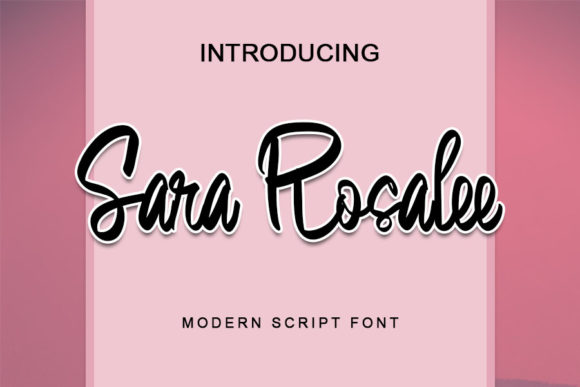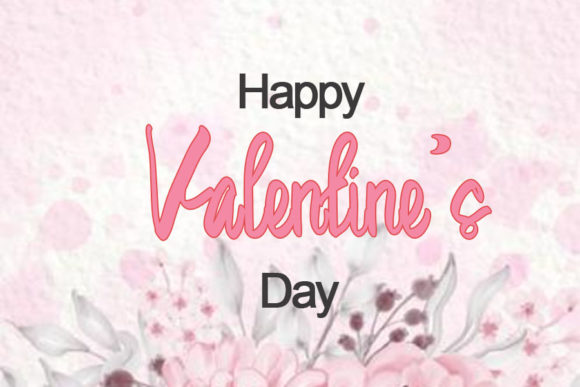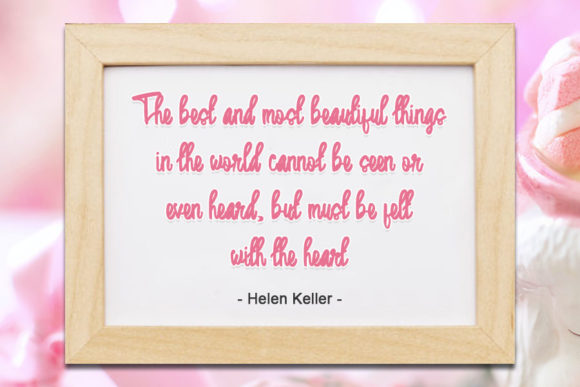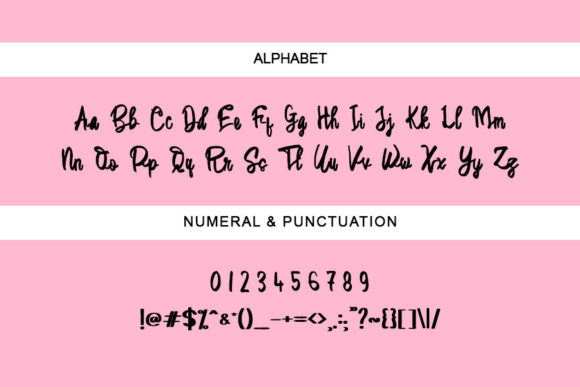
Sara Rosalee Font
About Sara Rosalee Font
Sara Rosalee is a thin and beautiful handwritten font. Its distinct and well rounded letters make this font a masterpiece. Fall in love with its incredibly versatile style and use it to create spectacular designs!